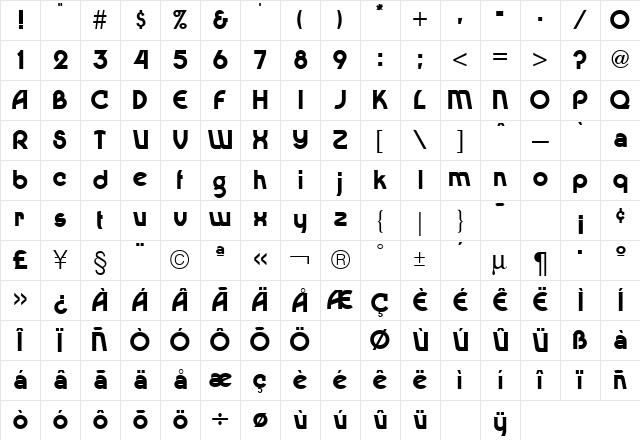
Dingaling Medium Regular
Design Context for Dingaling Medium
Dingaling Medium is a composed and adaptable typeface that performs quietly and consistently across a wide range of design contexts.
Pro Tip: Use Dingaling Medium in both headline and body roles to test its range before committing to a single application.